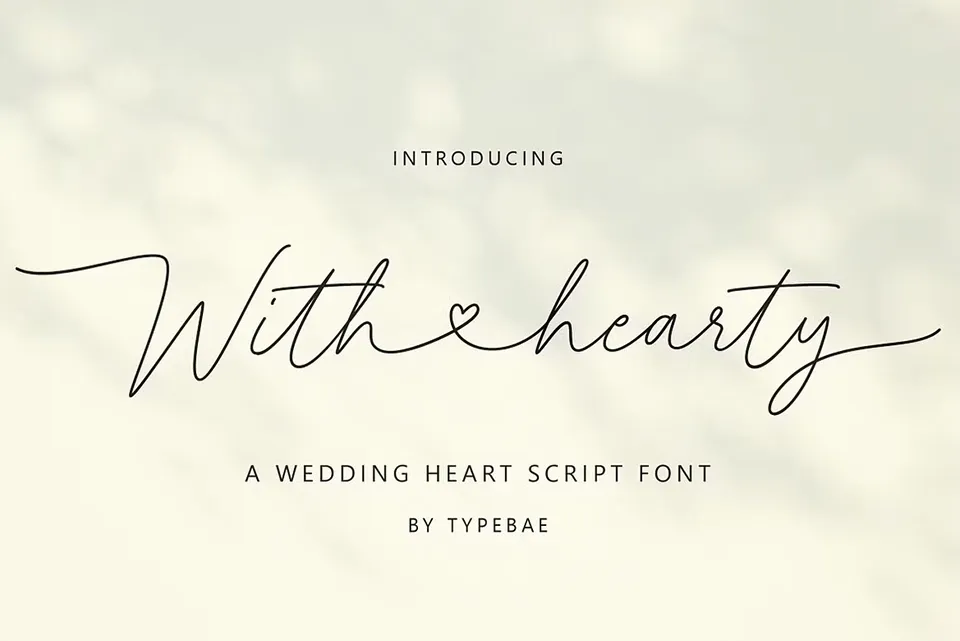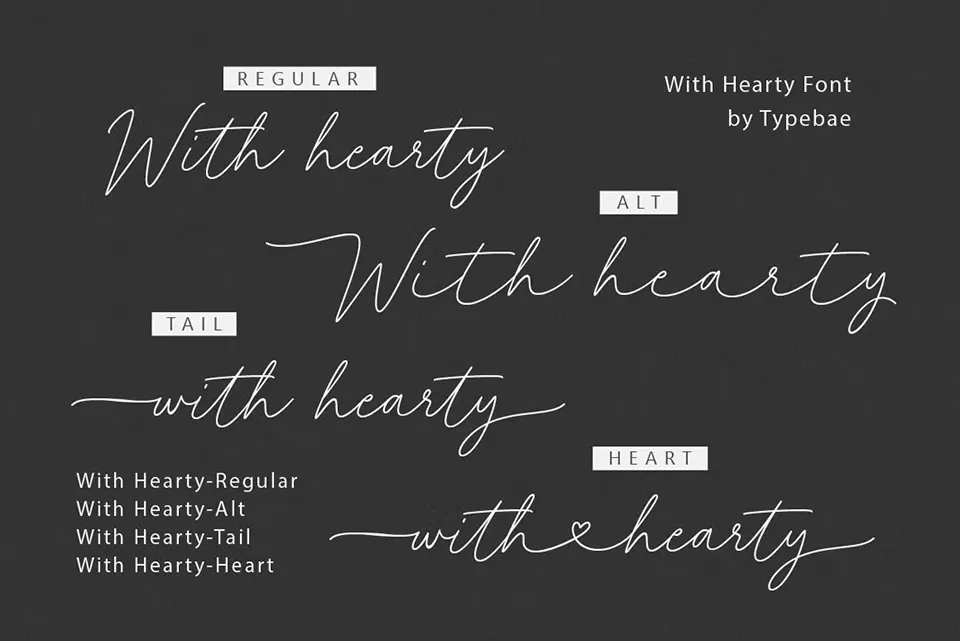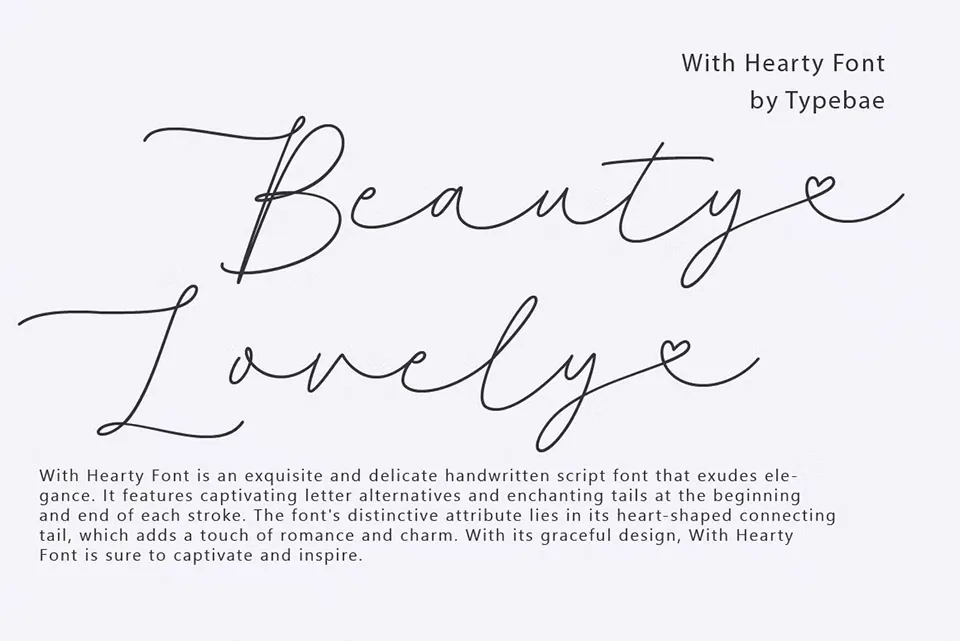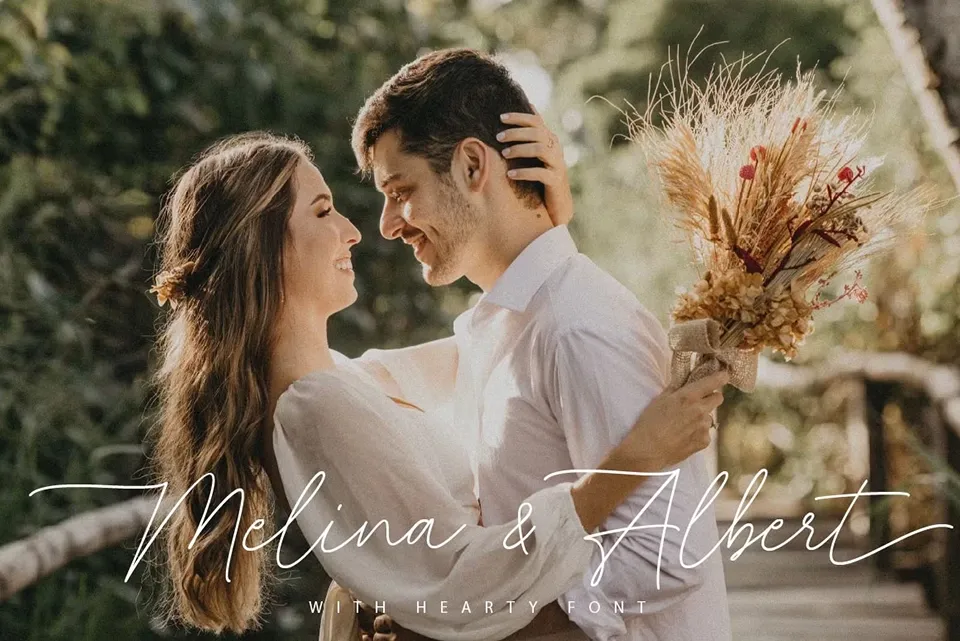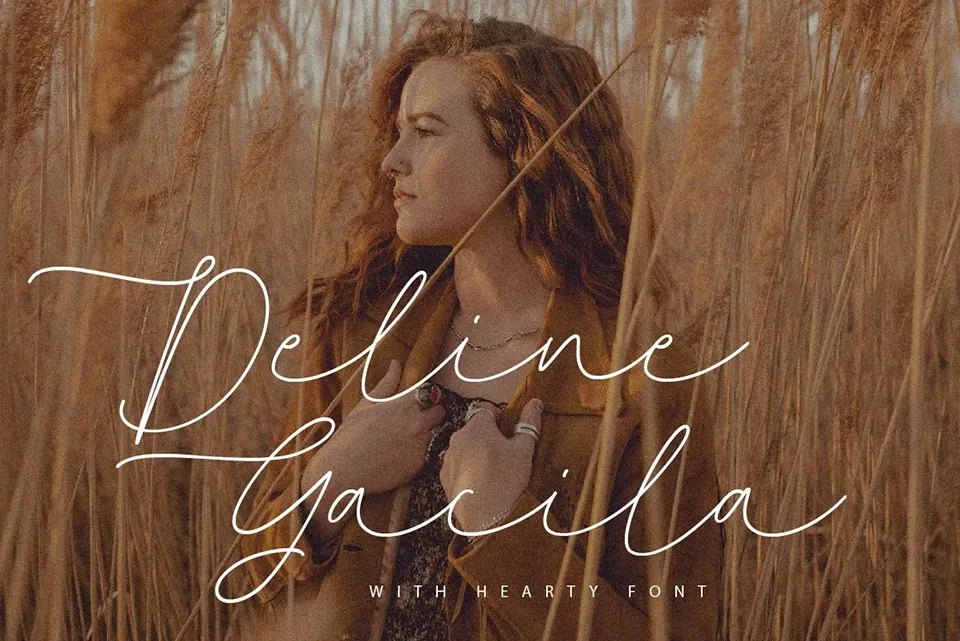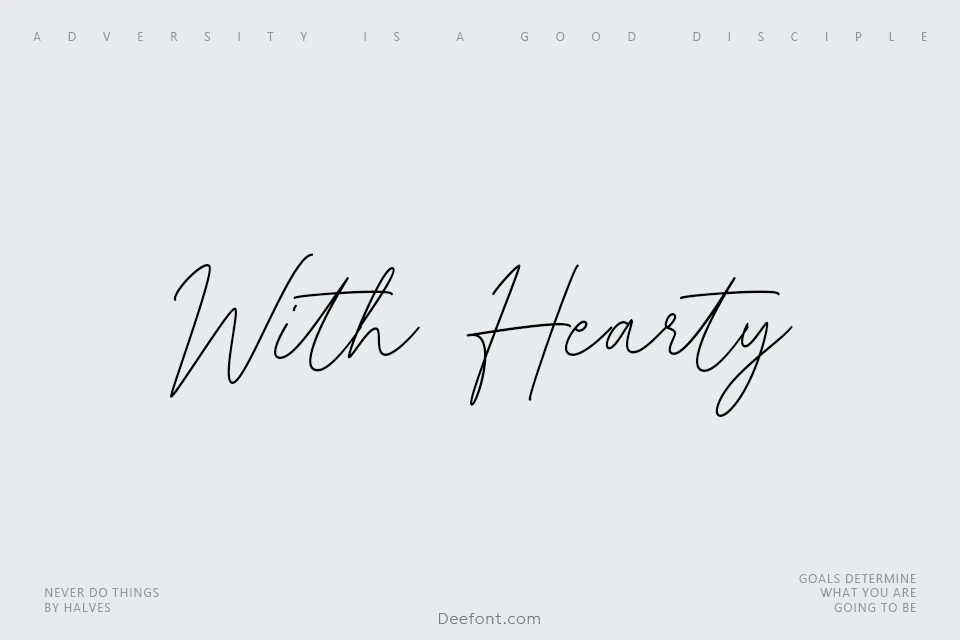
With Hearty Font
With Hearty Font is an exquisite and delicate handwritten script font that exudes elegance. It features captivating letter alternatives and enchanting tails at the beginning and end of each stroke. The font’s distinctive attribute lies in its heart-shaped connecting tail, adding a touch of romance and charm. With its graceful design, With Hearty Font is perfect for wedding invitations, romantic branding, and any project that calls for a sophisticated handwritten touch.